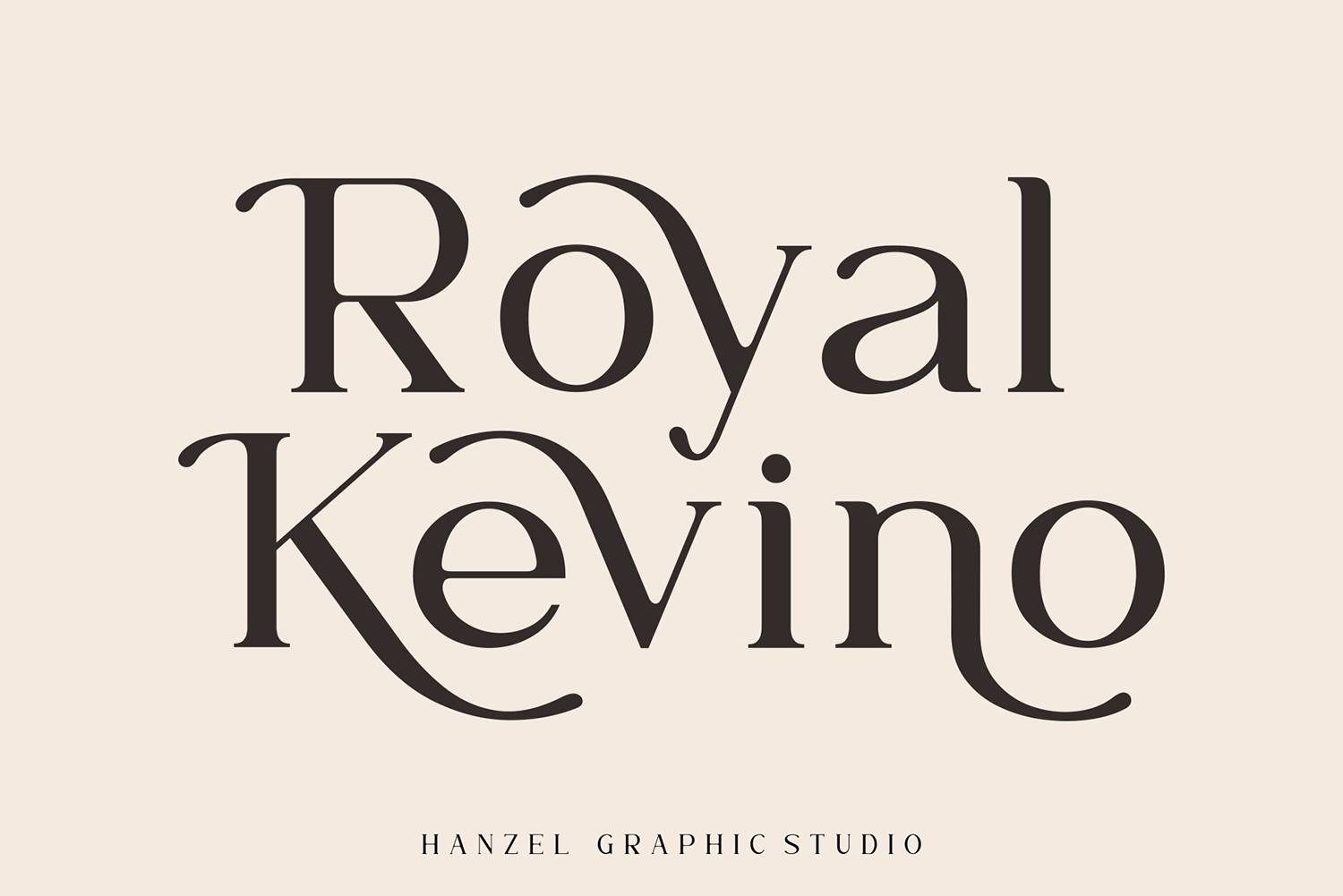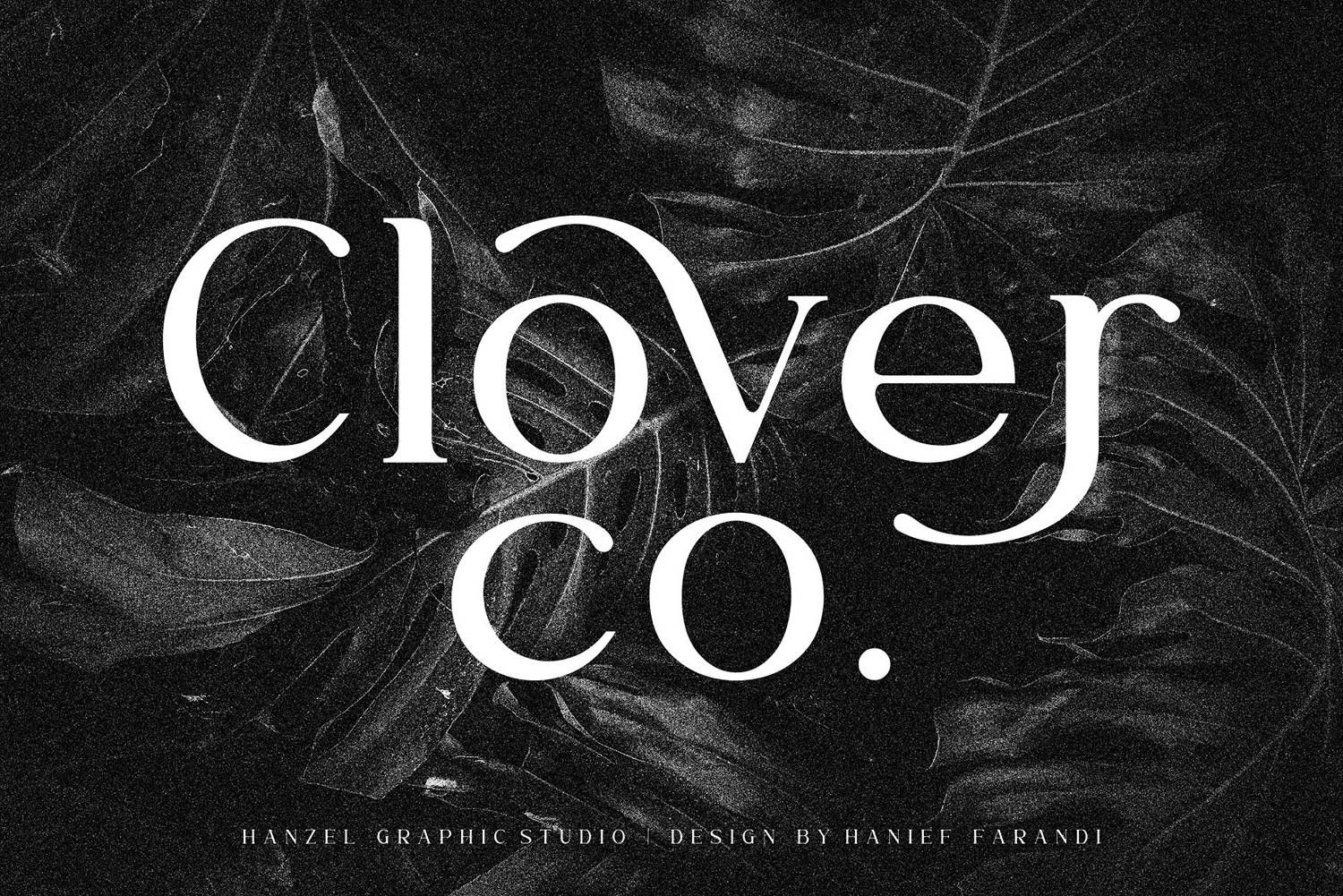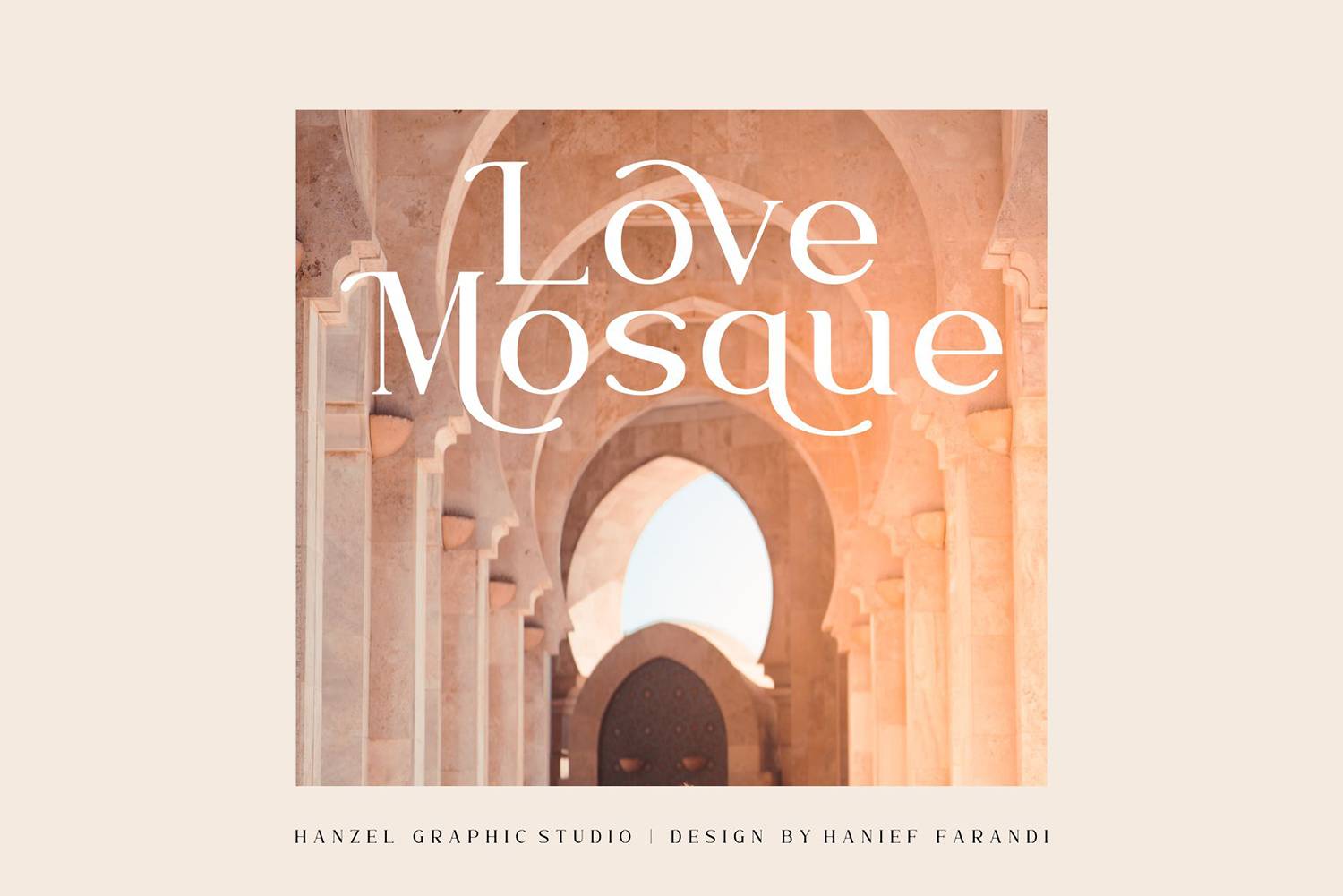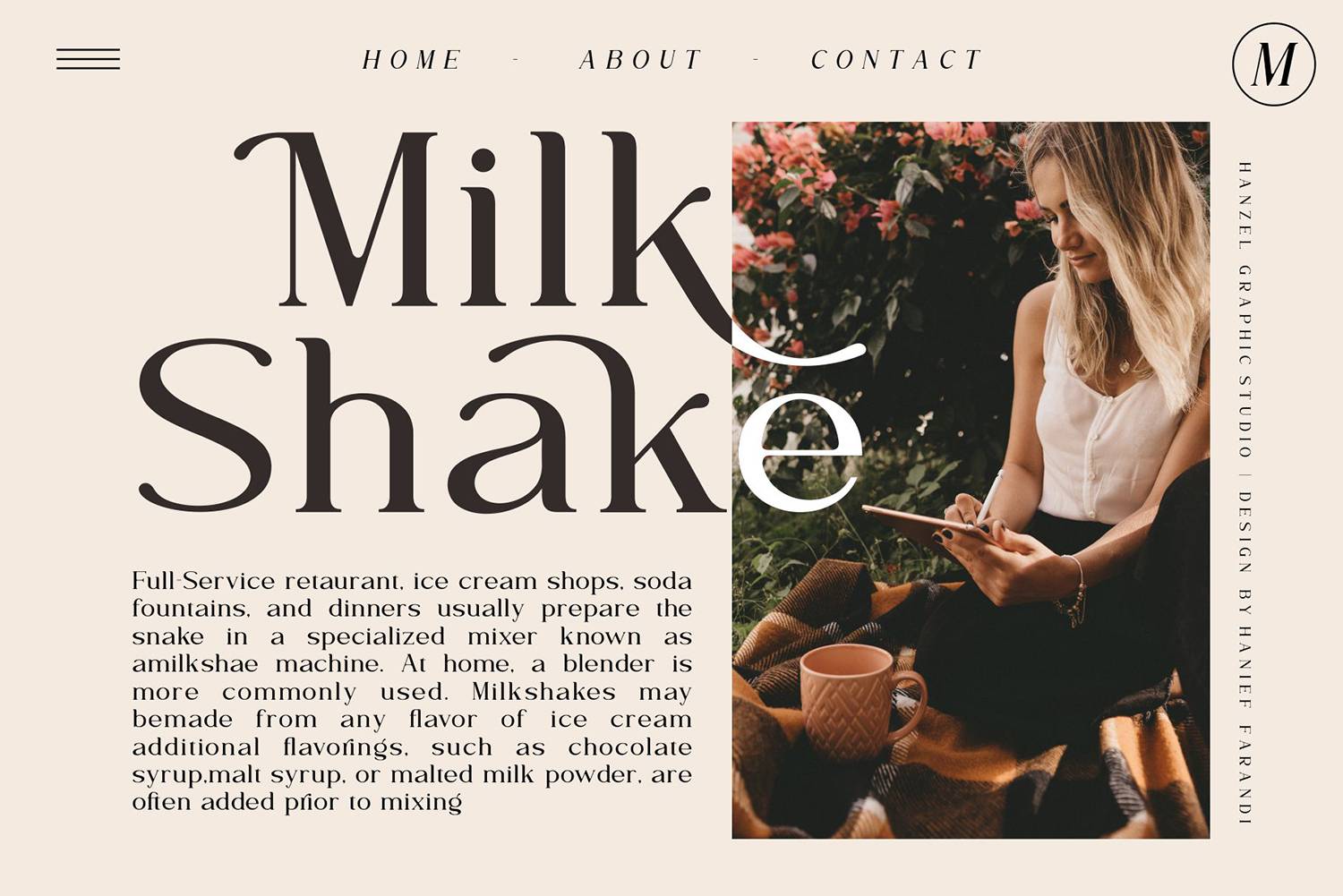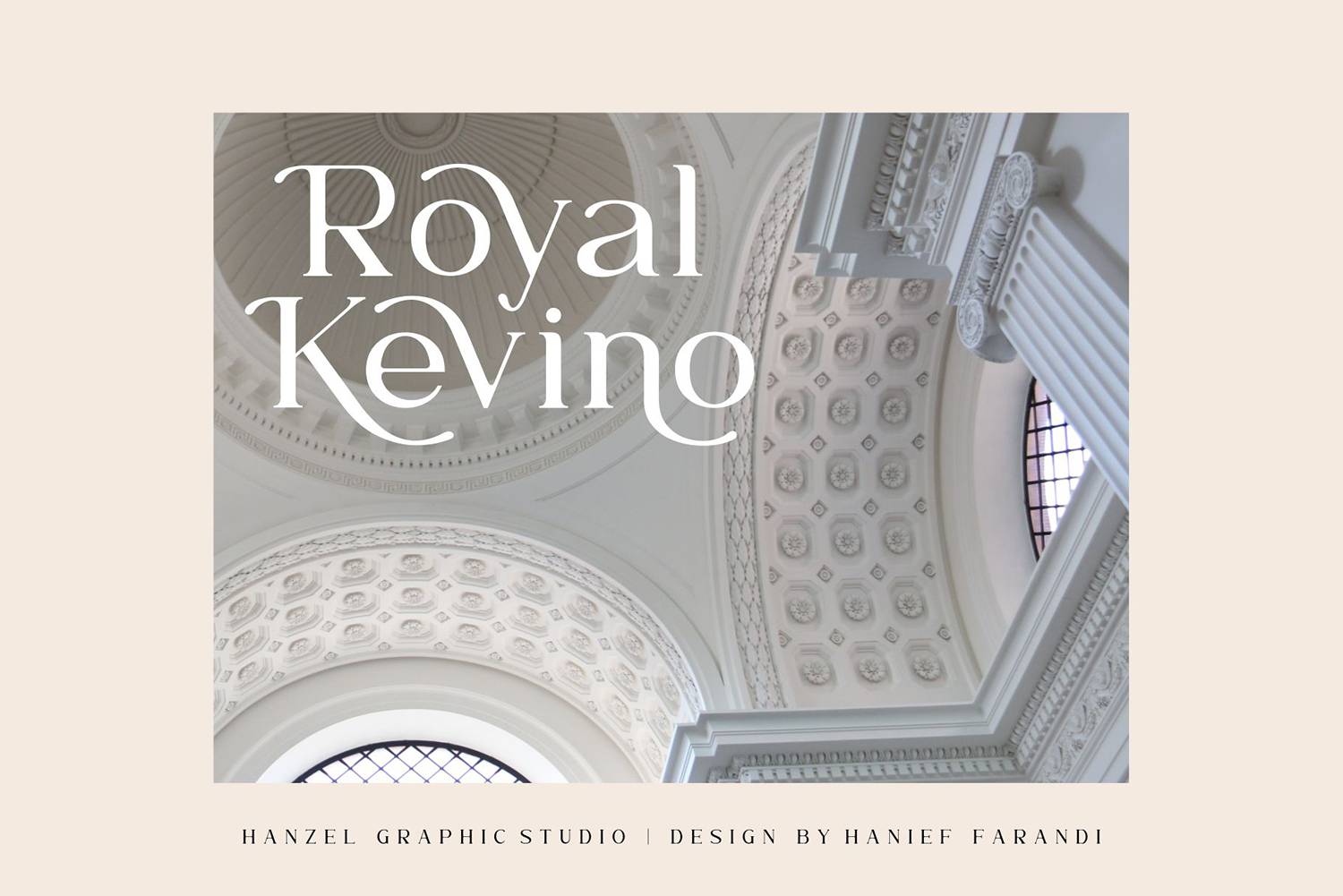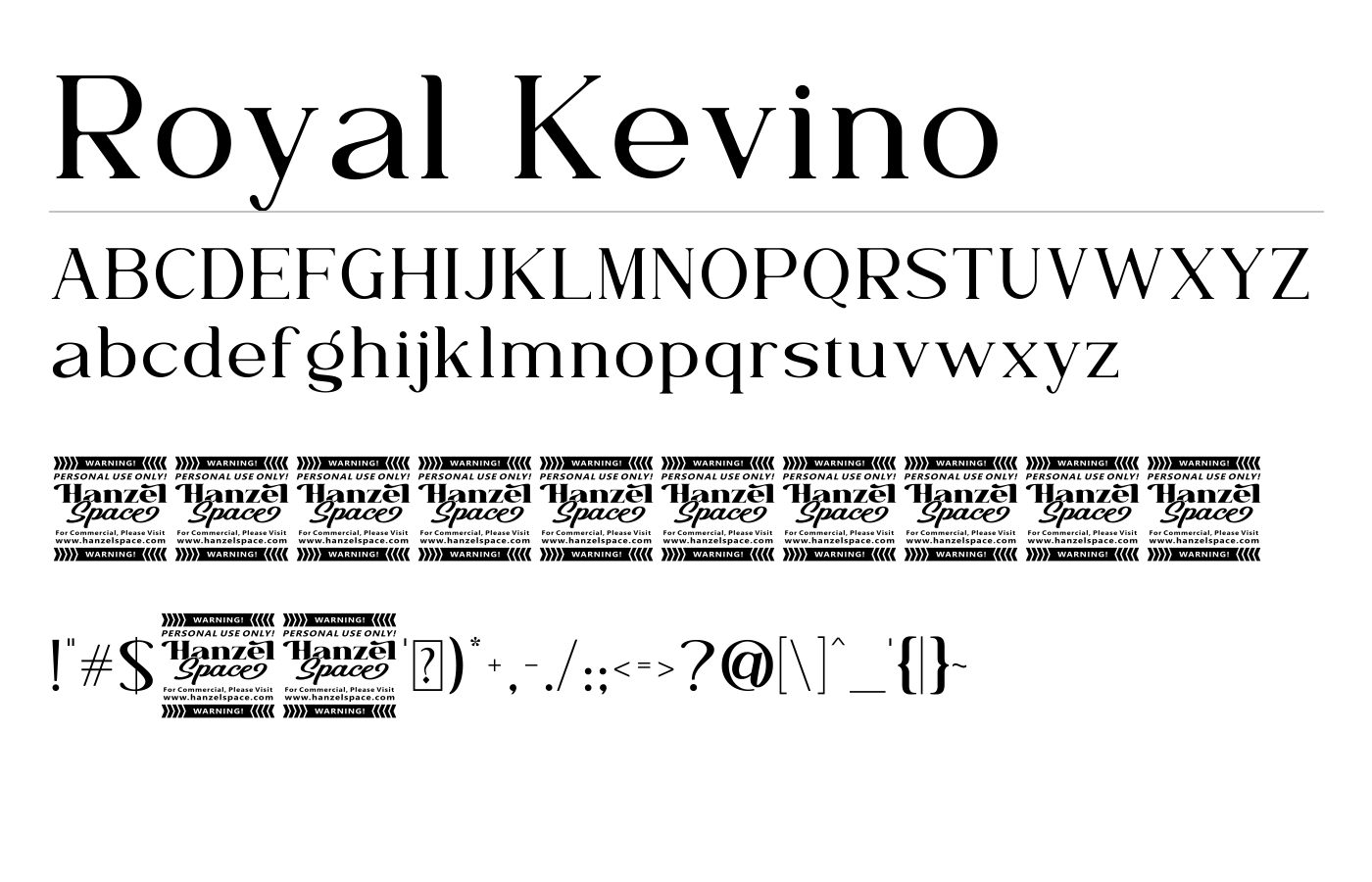
Royal Kevino is a refined serif font with a classic, elegant feel characterized by its moderate contrast between thick and thin strokes and graceful bracketed serifs. It features a balanced x-height and traditional letterforms, including a double-story lowercase 'a' and 'g,' making it perfect for sophisticated branding, editorial headlines, and luxury packaging that demand timeless style and readability. This font conveys a sense of tradition and professionalism while maintaining a modern sharpness suitable for upscale and formal designs.
Royal Kevino Font
About Royal Kevino Font
| Font family | Royal Kevino Font |
| Designer | Hanief Farandi |